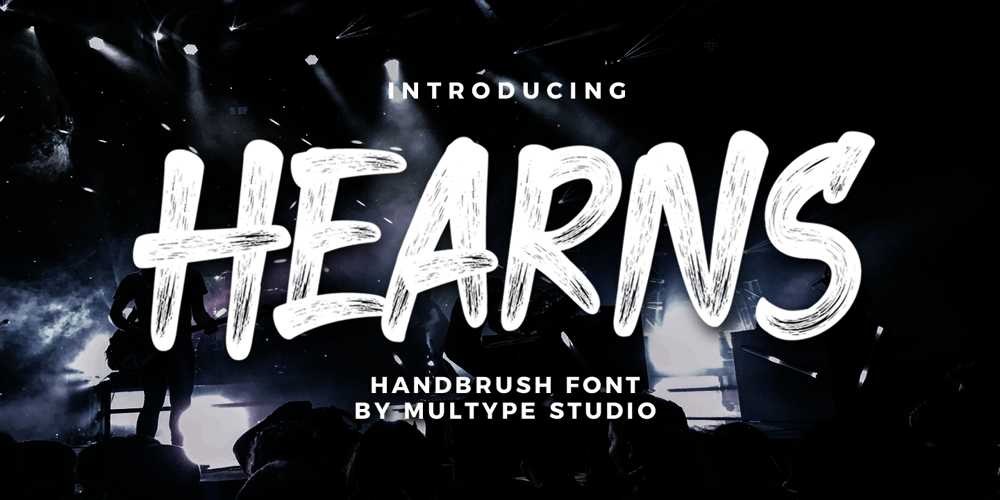
Hearns
Hearns font
Hearns Font Family was designed by Mulia Yanto and published by Multype Studio. Hearns contains 1 styles and family package options. Hearns is a handbrush font with authentic textures. This font would perfect for logos, branding, product designs, product packaging, photography, watermark, social media posts, advertisements, invitation, stationery, labels, logos, magazines, books, greeting / wedding cards, fashion, make up, and etc.What’s Include : Standard glyphs Numbers and punctuation Multilingual support Works on PC & Mac Simple installations Accessible in the Adobe Illustrator, Adobe Photoshop, Adobe InDesign, even work on Microsoft Word. PUA Encoded Characters Fully accessible without additional design software. Thank you for your purchase!Hope you enjoy with our font!